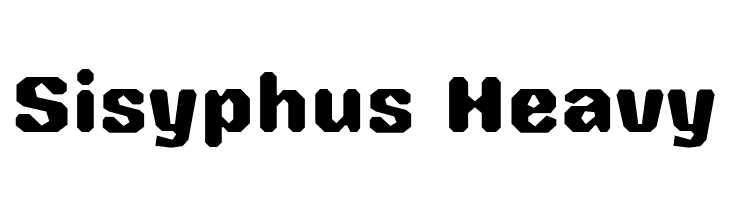
• Sisyphus Bold schriftart
A bold, geometric font with a modern, industrial style.
• Sisyphus Heavy schriftart
A bold, geometric font with thick strokes and angular edges.
• Sisyphus Light schriftart
A bold, rounded font with a playful and approachable style.
• Sisyphus Medium schriftart
A bold, rounded font with a strong and approachable style.
• Sisyphus Regular schriftart
A bold, rounded font with a playful and robust style.
• Sisyphus Thin schriftart
A bold, rounded font with smooth curves and a modern, approachable style.
• Sisyphus Variable schriftart
A bold, geometric font with strong, angular lines and an industrial feel.